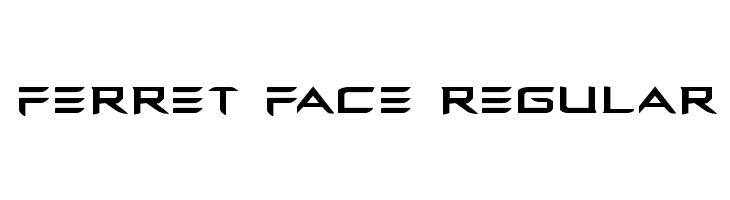
A futuristic, angular font with sharp edges and geometric forms.
A playful, hand-drawn font with bold, rounded characters and a dynamic tilt.
A distressed serif font with a grunge, textured appearance.
A sleek, italic, and condensed font with moderate stroke contrast.
A bold, modern sans-serif font with clean lines and excellent readability.
Bold, condensed, and italic with a modern, angular design.
A bold serif font with thick strokes and classic elegance.
A modern, medium-weight italic sans-serif font with a sleek and dynamic style.